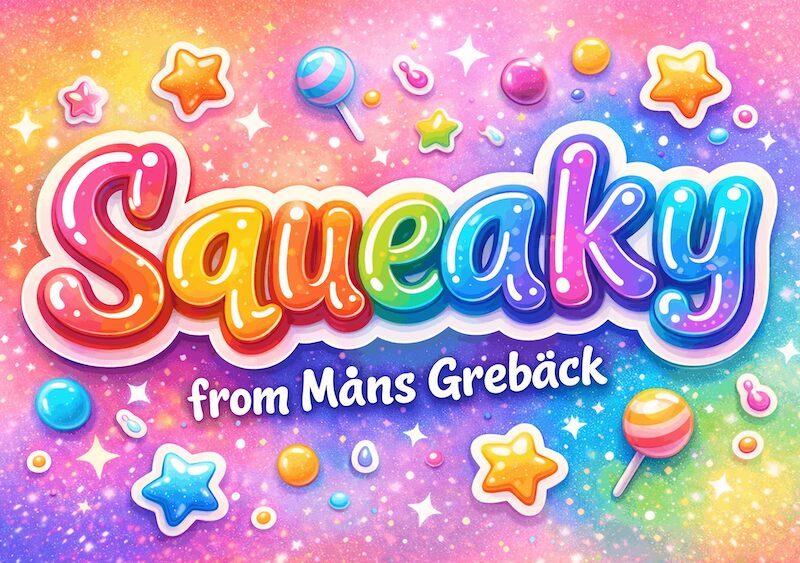
Squeaky font
Squeaky
Squeaky is a playful display font that features a soft, bouncy rhythm and a friendly tone. Its rounded shapes and quirky flow create a lively personality that can enhance any design project.